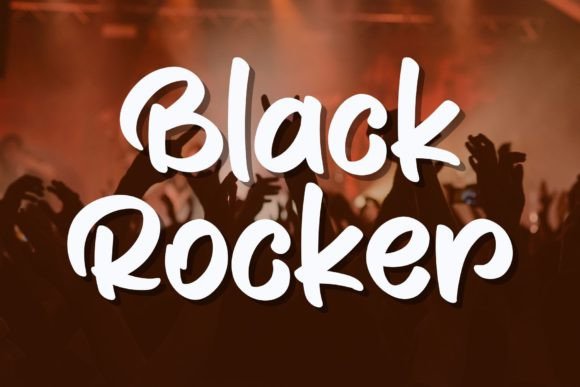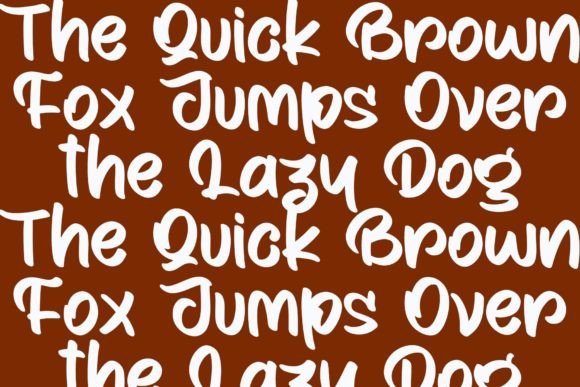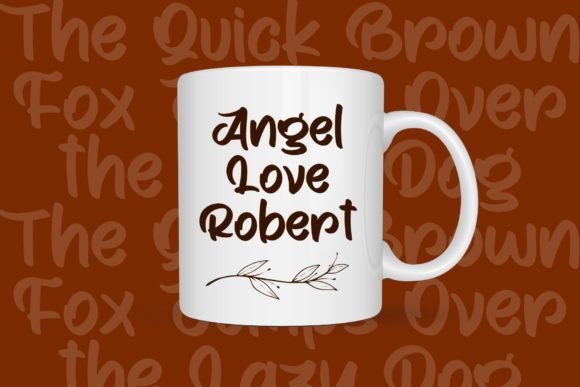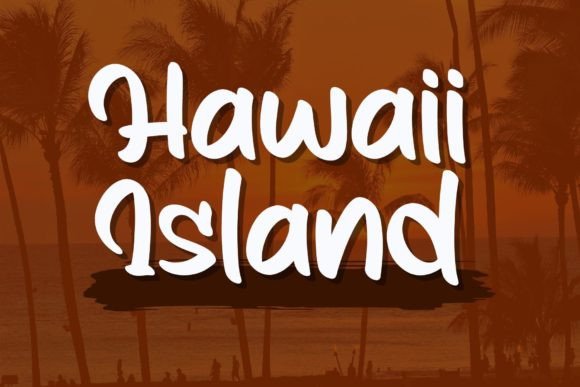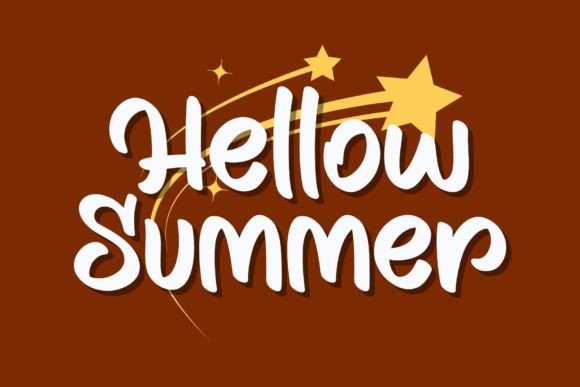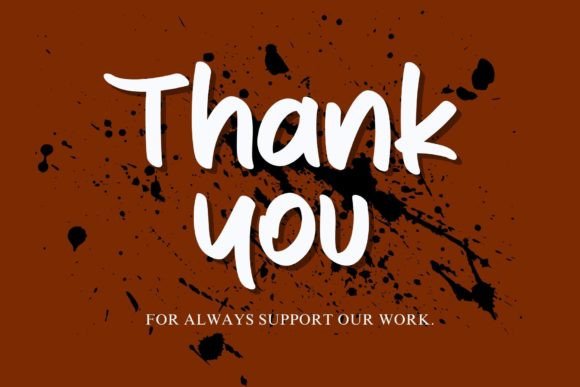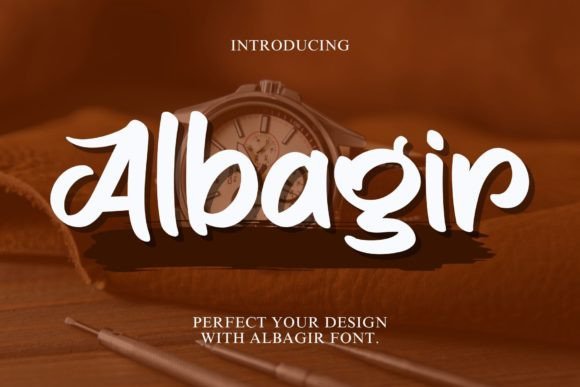
Introducing Albagir Font: Elevate Your Designs with Elegance and Originality
In the world of typography, fonts play a crucial role in conveying messages, expressing emotions, and creating lasting impressions. For designers, crafters, and anyone looking to make a statement with their visual communication, finding the right font can be a daunting task. This is where Albagir Font comes into play, offering a distinctly elegant touch that can transform your designs and set you apart from the crowd.
The Distinct Charm of Albagir
Albagir is not just another font; it’s a captivating display font that boasts unique contours and an artistically balanced structure. This combination ensures that every piece of visual communication benefits from a blend of beauty and clarity. Whether you’re working on a branding project, crafting a compelling headline, or simply looking to add a touch of sophistication to your digital or print materials, Albagir holds a distinct charm that exudes both creativity and precision in its design.
Why Choose Albagir?
For those seeking to stand out with elegance and originality, Albagir is a refined choice that checks all the boxes. Here are a few reasons why Albagir should be at the top of your font considerations:
- Unique Appeal: Albagir’s design is unlike any other, breathing life into your designs and enhancing them to their fullest potential.
- Versatility: The font offers a subtle versatility that allows it to adapt to various design needs, from luxury branding to creative projects.
- Readability: Despite its elegant and artistic design, Albagir ensures that readability is never compromised, making it perfect for both headings and body text.
- Elegance and Originality: With Albagir, you can add a touch of elegance and originality to your designs, making them memorable and impactful.
Where Style Meets Function
Albagir Font is the perfect example of where style meets function in the most beautiful way. It’s not just about making your designs look good; it’s about enhancing their effectiveness. With Albagir, you can:
- Elevate your brand’s visual identity with a distinctive and elegant font.
- Create compelling headlines and engaging content that captures attention.
- Add a professional touch to your designs, whether digital or print.
- Ensure your message is conveyed with clarity and impact.
Albagir Font is a valuable addition to any designer’s or crafter’s toolkit. Its unique design and versatile application make it suitable for a wide range of projects, including:
- Web design and digital content
- Print materials, such as brochures, posters, and business cards
Albagir Font offers a distinctly elegant touch that can elevate your designs and make them stand out. With its unique contours, artistically balanced structure, and subtle versatility, Albagir ensures that your visual communication benefits from both beauty and clarity. Whether you’re a designer, crafter, or simply someone looking to add a touch of sophistication to your projects, Albagir is a refined choice that combines style and function in the most beautiful way. Experience the elegance and originality of Albagir and take your designs to their fullest potential.